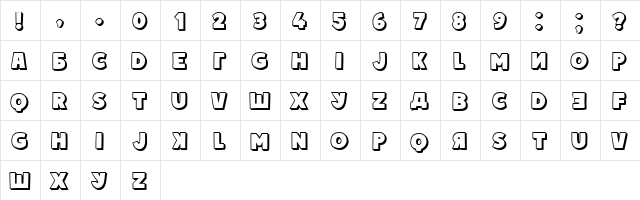
Ukrainian Princess Shadow Regular
Design Context for Ukrainian Princess Shadow Typeface
Ukrainian Princess Shadow brings ornamental detail and strong personality to headlines and identities, where visual impact matters more than quiet functionality.
Font Pairing: Pair with a clean neutral sans-serif for body copy to let Ukrainian Princess Shadow's character lead without overwhelming the composition.
Pro Tip: Use Ukrainian Princess Shadow exclusively at display sizes — it was designed to be seen, not read at length. Let a neutral companion handle body copy.